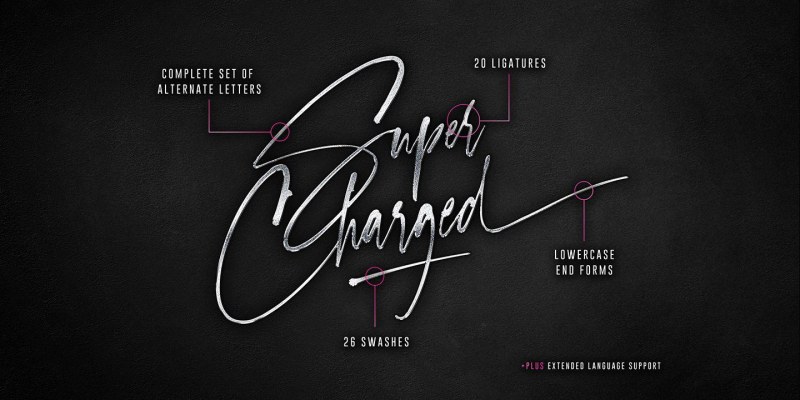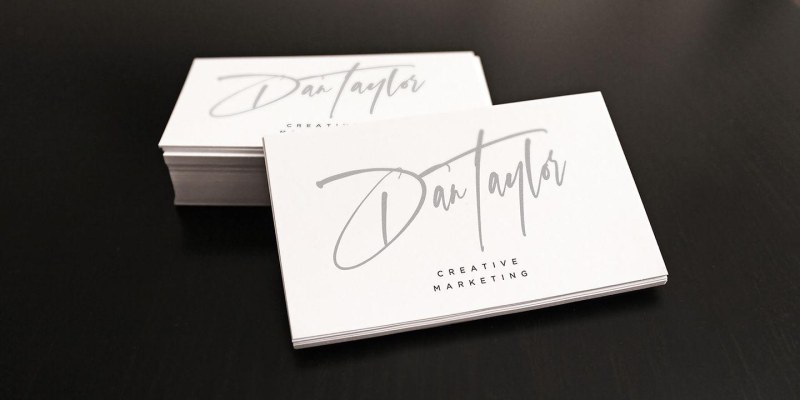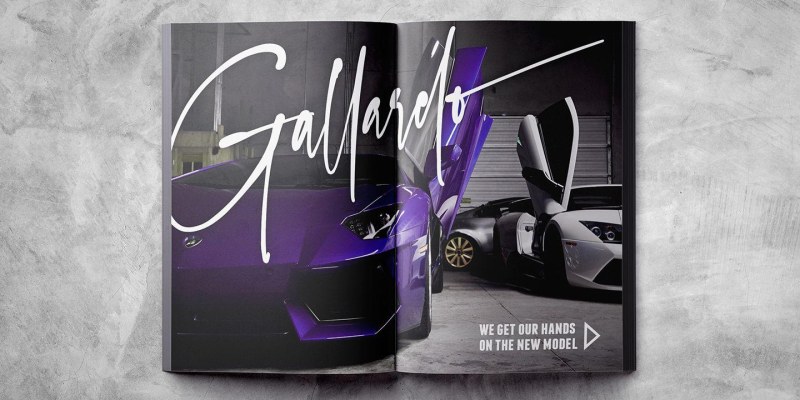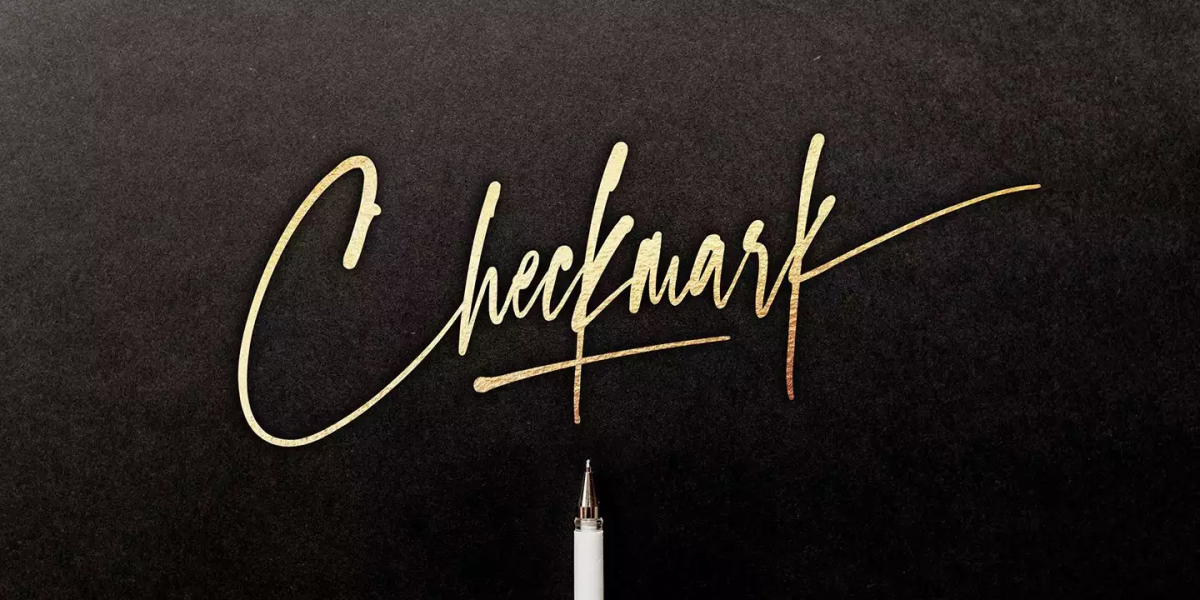
Checkmark Font Family
Make your mark with Checkmark; a slick, high energy signature-style script font guaranteed to make a big impression. Digitally hand-drawn, it’s super-clean smooth flow and high-intensity pen strokes make an unmistakable impact in logo/branding projects, large header text and product packaging.
Checkmark offers an array of additional features, providing ample customization opportunities for users. These include a comprehensive set of upper and lowercase alternate letters, 20 ligatures to enhance the fluidity of script lettering, 26 swashes, and a complete set of lowercase end forms, adding a touch of elegance and finesse to your text.
In summary, Checkmark’s rich feature set empowers users to personalize their designs with ease and precision, making it a valuable asset for designers seeking versatility and sophistication in their projects.
Checkmark Font Family is a Script And Handwritten font that brings a professional and versatile look to your projects. Make your mark with Checkmark; a slick, high energy signature-style script font guaranteed to make a big impression.